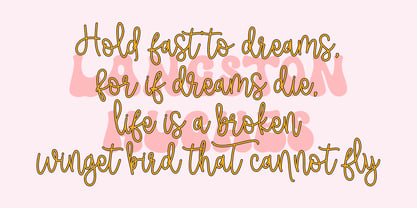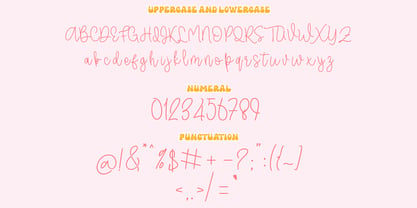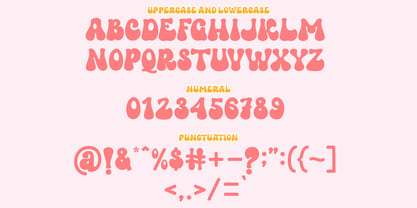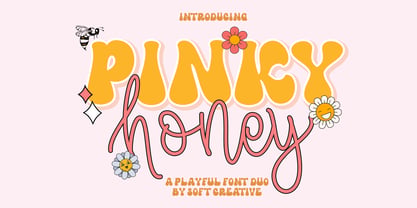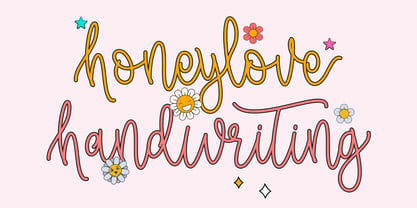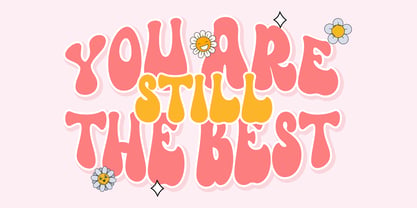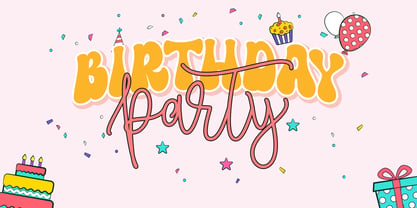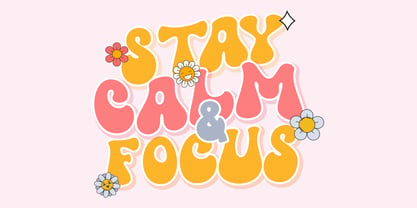
Pinky Honey
by Soft Creative
The Pinky Honey Font Family was designed by Muhajir Akarim and published by Soft Creative. Pinky Honey contains 2 styles and family package options. More about this family
Pinky Honey is a sweet and cheerful duo font, combining a bold display style with an elegant, flowing script. Designed to convey a fun, retro, and cheerful feel, this font is perfect for a variety of design needs that want to stand out while remaining warm and friendly. The sans/bold section is bold, rounded, and eye-catching—perfect for headlines or titles that want to immediately grab attention. Meanwhile, the script adds a personal and feminine touch with its smooth, flowing curves. The combination of the two creates a playful yet stylish visual harmony, making it an ideal choice for creative projects such as branding, packaging, posters, social media, even children's designs or modern vintage themes.
Designers: Muhajir Akarim
Foundry: Soft Creative